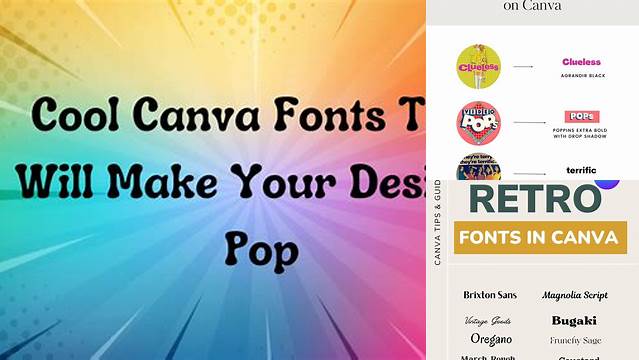
Cool Fonts For Canva: Make Your Designs Pop!
Hey guys! Ever feel like your Canva designs are missing that certain something? Yeah, we've all been there. Sometimes, all it takes is the perfect font to transform your project from blah to bam! Canva's packed with tons of fonts, but finding the cool fonts Canva offers can feel like searching for a needle in a haystack. Don't sweat it! This guide is your map to fontastic designs. We're diving deep into the world of Canva fonts, exploring everything from classic choices to trendy typography. Get ready to unleash your inner design guru and make your creations truly stand out. We'll cover tips for choosing the right fonts, font pairings that work like magic, and even some hidden gems you might have missed. Let's get this font party started!
1. Best Canva Fonts for a Modern Look
Looking to give your designs a sleek, contemporary edge? The cool fonts Canva boasts that nail the modern aesthetic are all about clean lines, geometric shapes, and a minimalist vibe. Think about the message you're trying to convey. A strong, bold sans-serif font might be perfect for a powerful headline, while a lighter, more elegant sans-serif could be ideal for body text. Some of our top picks for a modern look include Montserrat, Raleway, and Open Sans. These fonts are versatile, highly readable, and work well in a variety of design contexts. Montserrat, in particular, is a fantastic choice for headlines, while Raleway offers a slightly more sophisticated feel. Open Sans is a workhorse font that's perfect for body text, ensuring your message is clear and easy to read. Experiment with different weights and styles within these font families to create visual hierarchy and add depth to your designs. Remember, the key to a modern design is simplicity and clarity, so choose fonts that reflect that ethos. You can also find great pairings within these font families themselves, using a bold weight for headings and a regular weight for body text to create a cohesive and professional look. Don't be afraid to play around with letter spacing and line height to further refine your typography and achieve the desired effect.
2. Canva Font Combinations That Work Wonders
The secret to truly amazing design often lies in the art of font pairing. Mastering the skill of combining different fonts can elevate your work from good to great. But let's be real, font pairing can be tricky! Luckily, Canva is filled with awesome font pairings. Choosing the right cool fonts Canva has can be overwhelming. When pairing fonts, aim for contrast. Pairing a bold sans-serif with a delicate serif font is a classic combination that creates visual interest. Think Oswald (bold sans-serif) paired with Playfair Display (elegant serif). This combination is perfect for headlines that demand attention and body text that's easy on the eyes. Another great option is pairing a script font with a simple sans-serif. This combo adds a touch of personality without sacrificing readability. Think Pacifico (playful script) paired with Montserrat (clean sans-serif). This pairing works well for logos, social media graphics, and invitations. Don't be afraid to experiment and try out different combinations. Canva offers many pre-made font pairings that you can use as a starting point. Remember, the goal is to create a visual harmony that enhances your message, not distracts from it. Consider the overall tone and style of your design when selecting fonts. A formal design might call for more traditional font pairings, while a casual design can handle more playful and unconventional combinations. Ultimately, the best font pairings are those that feel balanced and visually appealing.
3. Free Cool Fonts on Canva You Should Be Using
One of the best things about Canva is its extensive library of free fonts. You don't have to break the bank to access cool fonts Canva offers. Many hidden gems are waiting to be discovered. If you're on a budget, you can create stunning designs. Let's dive into some must-use free fonts that will instantly level up your designs. For a bold and impactful look, try Bebas Neue. This sans-serif font is tall, condensed, and perfect for headlines and posters. It commands attention and makes a statement without being overwhelming. Another fantastic free option is Lato, a sleek and modern sans-serif that works well in a variety of contexts. Lato is highly readable, making it a great choice for body text, but it also looks fantastic in headlines and subheadings. If you're looking for something with a bit more personality, check out Montserrat Alternates. This font offers a slightly different take on the classic Montserrat, with unique letterforms that add character and charm to your designs. For script fonts, consider Alex Brush, a beautiful and flowing option that's perfect for invitations, logos, and other designs that require a touch of elegance. Remember, the best free fonts are those that are versatile, readable, and complement your overall design aesthetic. Don't underestimate the power of free resources – Canva's free font library is a treasure trove of typographic goodness!
5. Pairing Serif Fonts in Canva Like a Pro
Serif fonts, with their elegant strokes and classic appeal, are a staple in the world of typography. But pairing them effectively can be a bit of an art. When it comes to choosing cool fonts Canva offers, serif types can be tricky. Fear not! We're here to guide you through the process of pairing serif fonts like a pro. The key to successful serif pairing is contrast and balance. You want to create visual interest without sacrificing readability. A common strategy is to pair a serif font with high contrast (thick and thin strokes) with a serif font with low contrast (consistent stroke weight). For example, Playfair Display (high contrast) pairs beautifully with Merriweather (low contrast). This combination creates a sense of drama and elegance while maintaining a clean and readable aesthetic. Another approach is to pair serif fonts from different eras or styles. For instance, a modern serif like Bodoni can be paired with a more traditional serif like Garamond. This creates a sophisticated and timeless look. When pairing serif fonts, pay attention to the x-height (the height of the lowercase letters). Fonts with similar x-heights tend to pair well together. Also, consider the overall mood and tone of your design. A formal design might call for more traditional serif pairings, while a more casual design can handle bolder and more unconventional choices. Remember, the goal is to create a cohesive and visually appealing design that effectively communicates your message. Experiment with different combinations and trust your eye. With a little practice, you'll be pairing serif fonts like a seasoned pro in no time!
6. Canva's Best Sans-Serif Font Pairings
Sans-serif fonts, known for their clean lines and modern feel, are a versatile choice for a wide range of design projects. But just like serif fonts, pairing sans-serif fonts requires a bit of know-how. If you are looking for cool fonts Canva hosts, sans-serif options are a great choice. Let's explore some winning sans-serif font pairings that will elevate your Canva designs. One classic approach is to pair a bold sans-serif with a lighter sans-serif. This creates a visual hierarchy and helps guide the reader's eye. For example, Montserrat (bold) paired with Open Sans (lighter) is a popular and effective combination. Montserrat makes a statement in headlines, while Open Sans is easy to read in body text. Another great option is to pair sans-serif fonts with different weights and styles within the same font family. This creates a cohesive and harmonious look. For instance, you can use a bold weight of Lato for headlines and a regular weight for body text. This approach ensures consistency while adding visual interest. When pairing sans-serif fonts, consider the overall personality of your design. A tech-focused project might benefit from a geometric sans-serif pairing like Futura and Century Gothic, while a more creative project might call for a humanist sans-serif pairing like Raleway and Lato. Don't be afraid to break the rules and experiment with unexpected combinations. Sometimes, the most striking designs come from thinking outside the box. However, always prioritize readability. Ensure that your font pairings are easy on the eyes and don't distract from your message. With a little practice, you'll be able to master the art of sans-serif font pairing and create stunning designs that are both visually appealing and highly effective.
7. Script Fonts on Canva for Elegant Designs
Want to add a touch of elegance and personality to your designs? Script fonts are your secret weapon. These flowing and handwritten-style fonts can instantly elevate your work. Finding the cool fonts Canva has for scripts might seem difficult, but there are so many options! But using script fonts effectively requires a bit of finesse. They're best used sparingly and in combination with other font styles. Overusing script fonts can make your design look cluttered and difficult to read. One of the most popular script fonts on Canva is Pacifico. Its playful and casual vibe makes it perfect for logos, social media graphics, and invitations. Another beautiful script font is Great Vibes, which exudes a more formal and elegant feel. This font is ideal for wedding invitations, certificates, and other designs that require a touch of sophistication. When pairing script fonts, it's crucial to choose a contrasting font for body text. A clean and simple sans-serif font like Montserrat or Open Sans works well with most script fonts. This ensures that your message is clear and readable. Avoid pairing script fonts with other highly decorative fonts, as this can create a visual clash. Script fonts are best used for headings, subheadings, and short bursts of text. They're not ideal for long paragraphs of body text, as they can be tiring to read. Experiment with different script fonts and see which ones best suit your style and design aesthetic. With a little practice, you'll be able to use script fonts to add a touch of magic to your Canva designs.
8. Display Fonts in Canva to Grab Attention
Display fonts are the rockstars of the font world – bold, eye-catching, and designed to make a statement. If you want to grab your audience's attention, display fonts are your go-to choice. Out of the cool fonts Canva has, display fonts really stand out. But with their unique personalities, display fonts require careful consideration. They're best used for headlines, logos, and short bursts of text, where their impact can truly shine. Overusing display fonts can make your design feel overwhelming and chaotic. Canva offers a wide variety of display fonts, each with its own distinct style. For a vintage vibe, try Bungee Shade or League Gothic. These fonts evoke a sense of nostalgia and are perfect for retro-inspired designs. If you're looking for something more modern and geometric, consider Montserrat Alternates or Bebas Neue. These fonts have clean lines and a strong presence, making them ideal for tech-focused or minimalist designs. When pairing display fonts, it's essential to choose a contrasting font for body text. A simple and readable sans-serif font like Open Sans or Lato is a safe bet. This ensures that your message is clear and easy to digest. Avoid pairing display fonts with other highly decorative fonts, as this can create a visual conflict. Display fonts are all about making a statement, so use them strategically to highlight key information and create a visual focal point. Experiment with different display fonts and see which ones resonate with your brand and style. With the right display font, your designs will command attention and leave a lasting impression.
9. The Power of Bold Fonts in Canva
Bold fonts are the workhorses of design, adding emphasis and making a statement without being overly flashy. They're essential for creating visual hierarchy and drawing attention to important information. In the world of cool fonts Canva provides, bold options are crucial. But mastering the use of bold fonts is key to creating effective designs. Bold fonts are incredibly versatile. They work well for headlines, subheadings, call-to-actions, and any other text you want to stand out. However, it's important to use them sparingly. Overusing bold fonts can dilute their impact and make your design feel visually cluttered. When choosing a bold font, consider the overall style and tone of your design. A classic bold sans-serif like Montserrat Bold is a safe bet for most projects. It's clean, readable, and commands attention without being overwhelming. For a more vintage or retro look, try a bold serif font like Playfair Display Bold. This font adds a touch of elegance and sophistication while still packing a punch. When pairing bold fonts, it's important to choose a contrasting font for body text. A regular weight of the same font family or a simple sans-serif font like Open Sans works well. This creates a clear visual distinction between the headline and body text, making your design easier to read. Experiment with different font weights and sizes to create a strong visual hierarchy. The most important information should be the largest and boldest, while less important information can be smaller and lighter. Bold fonts are a powerful tool in any designer's arsenal. Use them strategically to highlight key information, create visual interest, and make your designs more impactful.
10. Italic Fonts in Canva: A Subtle Touch of Style
Italic fonts are the understated cousins of bold fonts, adding a subtle touch of style and emphasis to your designs. They're perfect for highlighting key words, phrases, or quotes without overpowering the overall design. When you explore cool fonts Canva offers, don't overlook the italic versions! But like any design element, italic fonts should be used thoughtfully. Overusing italic fonts can make your design look cluttered and difficult to read. Italic fonts are best used sparingly and in specific contexts. They're ideal for adding emphasis to a word or phrase within a sentence, for quoting sources, or for creating a visual contrast within a block of text. Avoid using italic fonts for long paragraphs of body text, as they can be tiring to read. When choosing an italic font, consider the overall style and tone of your design. A classic italic serif font like Garamond Italic is a timeless choice that works well in a variety of contexts. For a more modern and minimalist look, try an italic sans-serif font like Lato Italic. When pairing italic fonts, it's important to maintain a balance. Use italic fonts sparingly in combination with regular or bold fonts. This creates a visual hierarchy and prevents your design from feeling overwhelming. Experiment with different font sizes and weights to find the perfect balance. Italic fonts are a subtle but powerful tool for adding style and emphasis to your Canva designs. Use them thoughtfully and strategically to enhance your message and create a visually appealing layout.